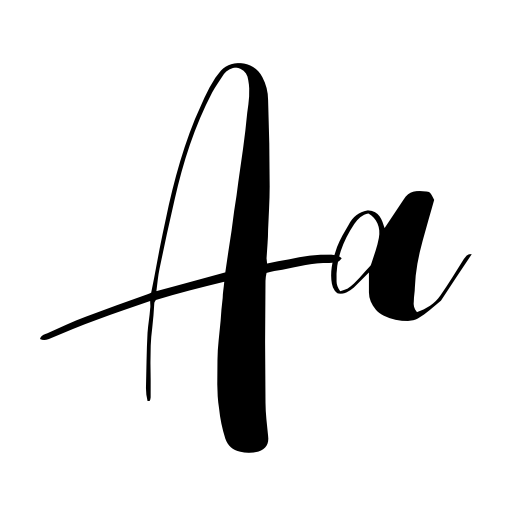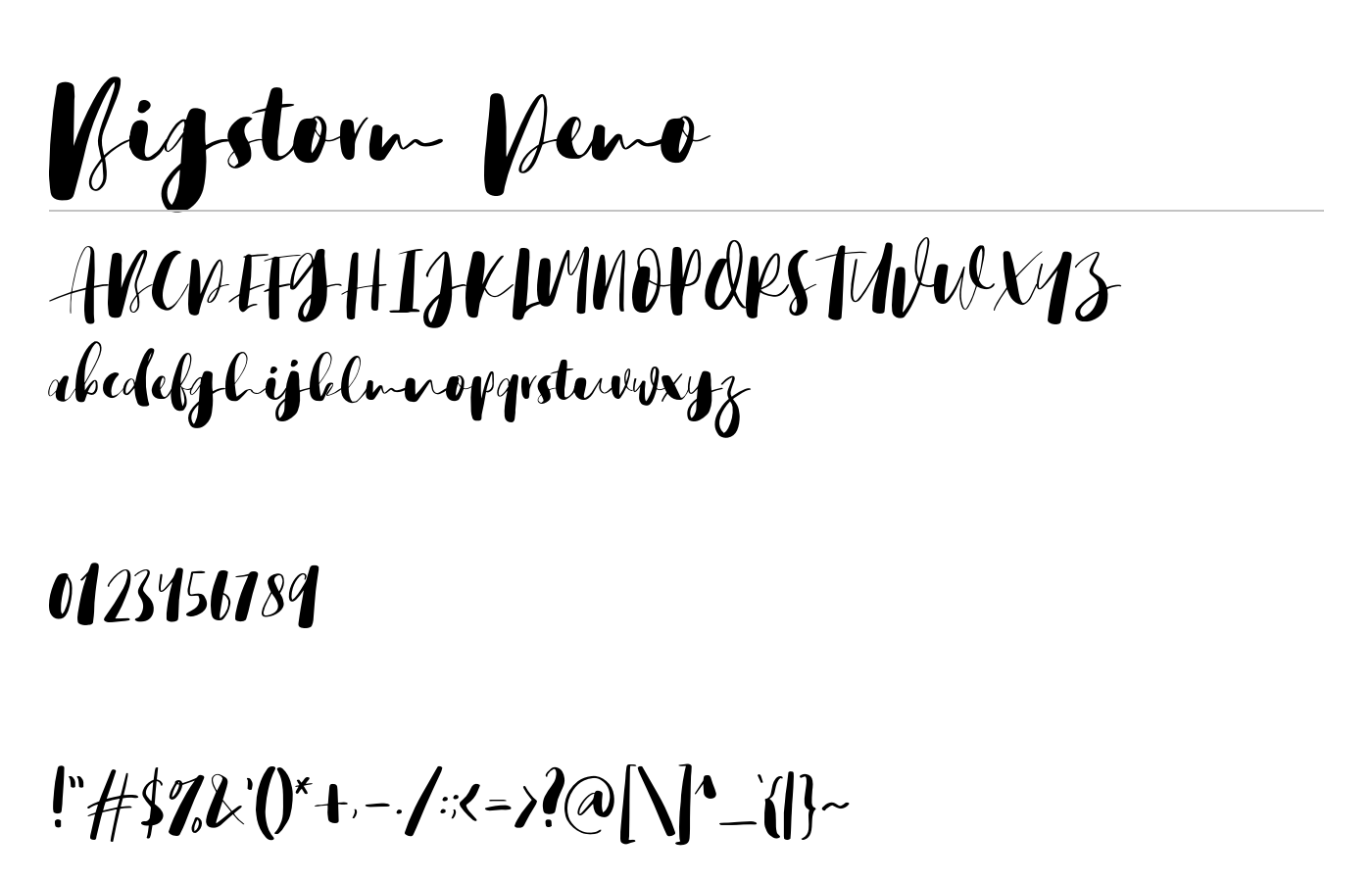
Bigstorm Demo is a lively, modern script font featuring a bold and playful brush style with fluid, connected strokes that capture an energetic and creative spirit. Its mix of thick and thin lines, combined with elegant swashes and organic curves, make it perfect for eye-catching headlines, branding, and invitations that want to convey personality and warmth. This font works well for creative projects needing a friendly yet dynamic handwritten feel.
Bigstorm Demo Font
About Bigstorm Demo Font